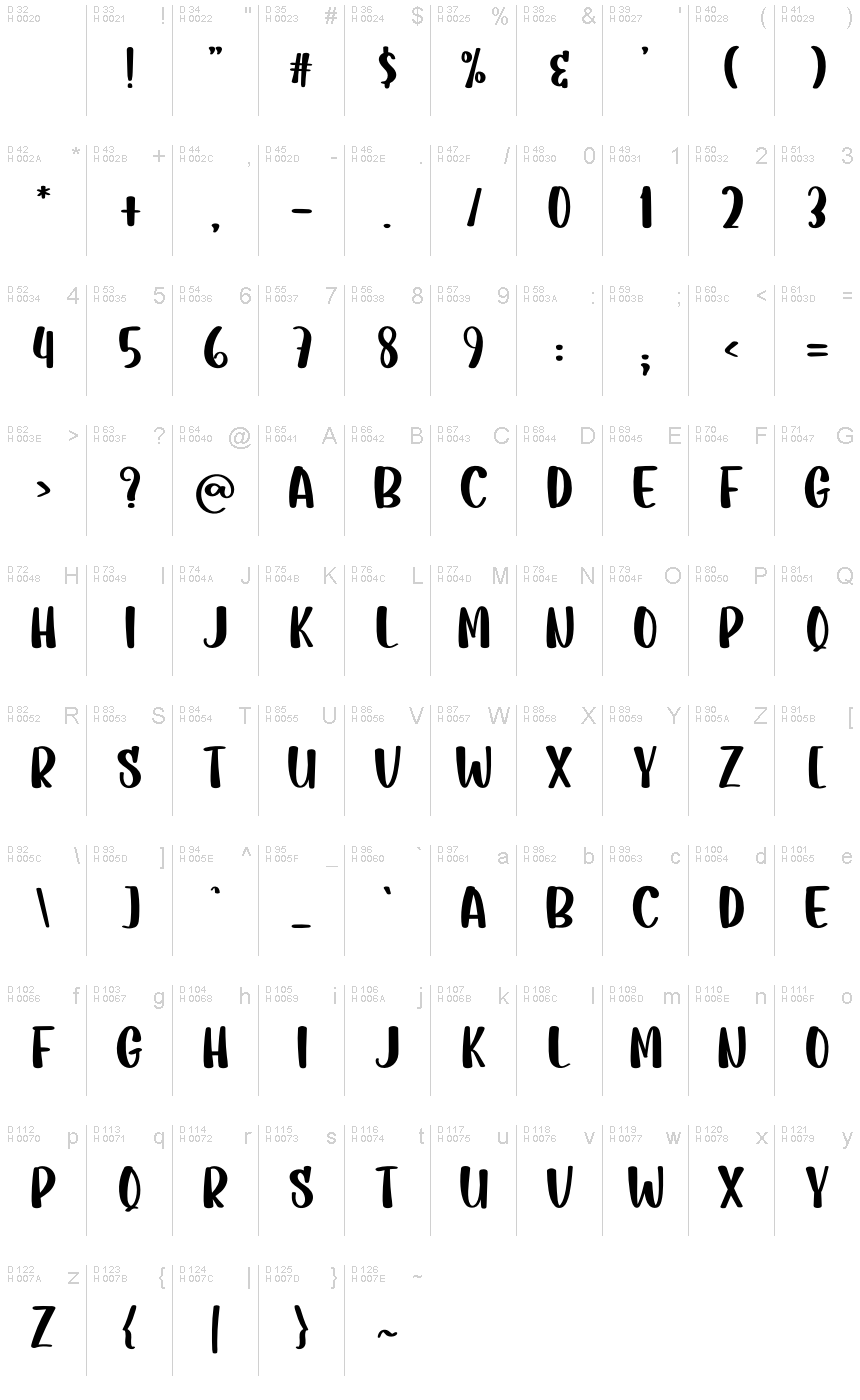
Candy Delight
Candy Delight, crafted by PiPi Creative, embodies the essence of whimsy and playfulness. This bold display font captures attention with its cartoonish flair, featuring exaggerated curves and dynamic forms that evoke a sense of joy and nostalgia. The letters bounce with personality, creating an inviting aesthetic that feels both vibrant and engaging.
Its distinctive character makes Candy Delight perfect for playful branding, children’s products, or any project seeking to infuse a lighthearted tone. Use it in eye-catching posters, lively invitations, or cheerful packaging to instantly convey fun and creativity. Whether you're designing for a birthday party or a festive event, this font adds an unmistakable charm that resonates across various design contexts.